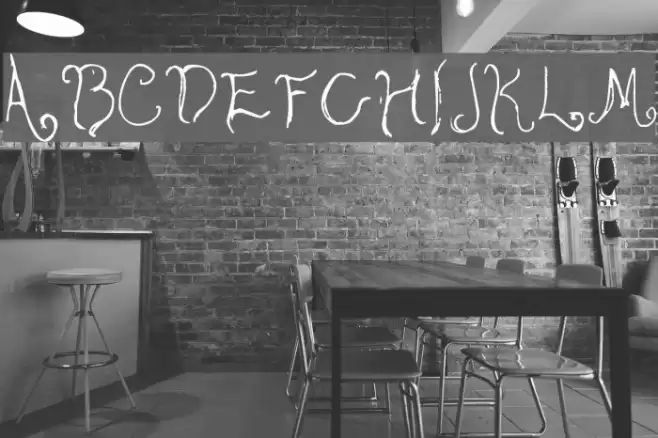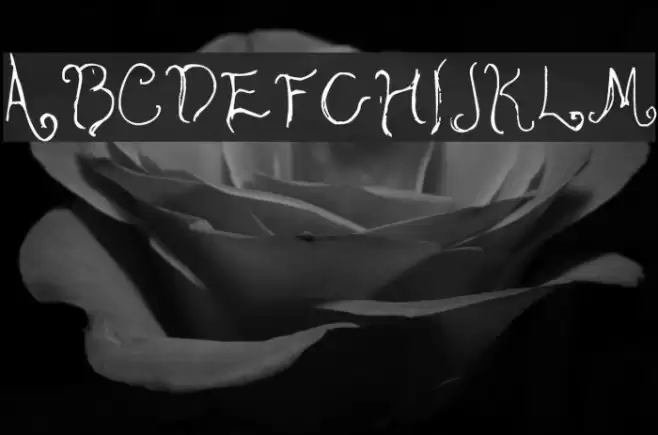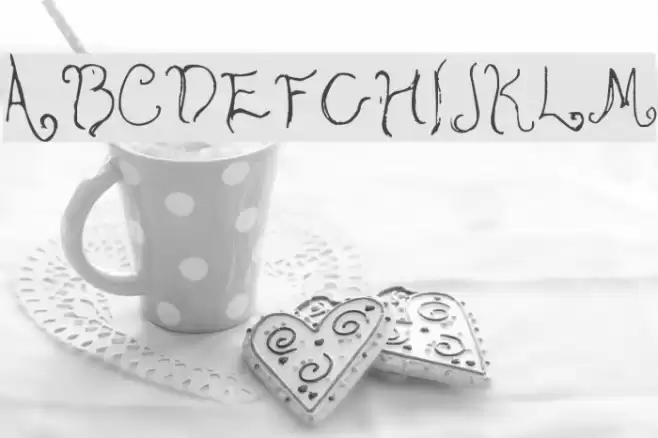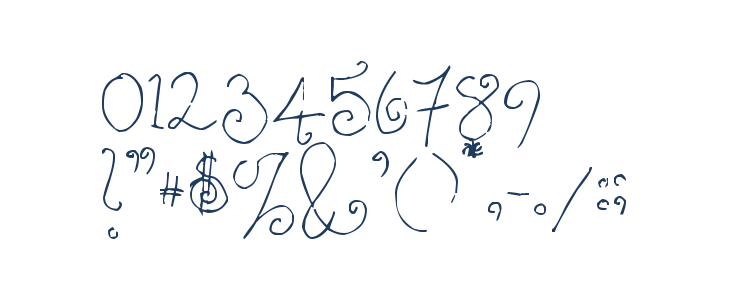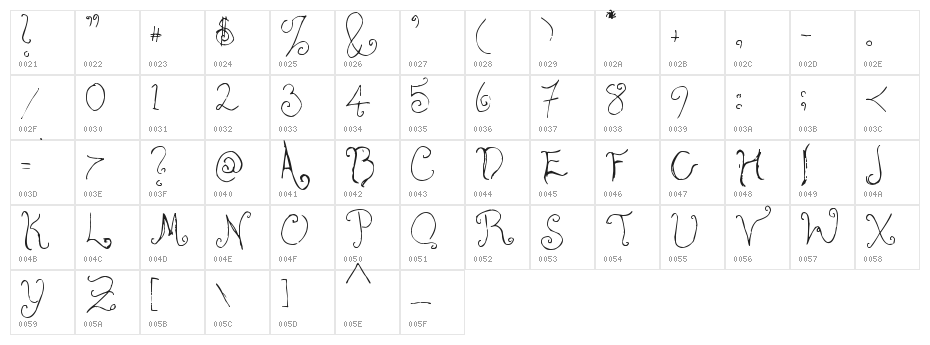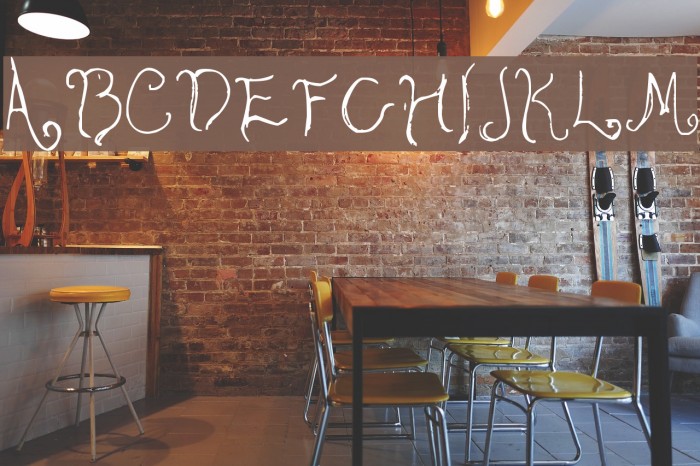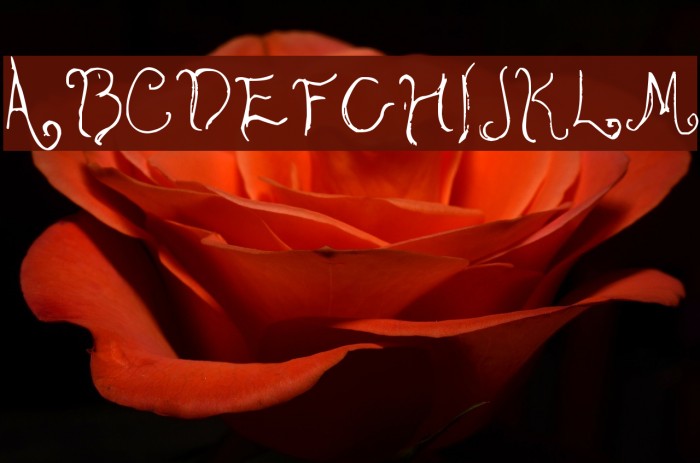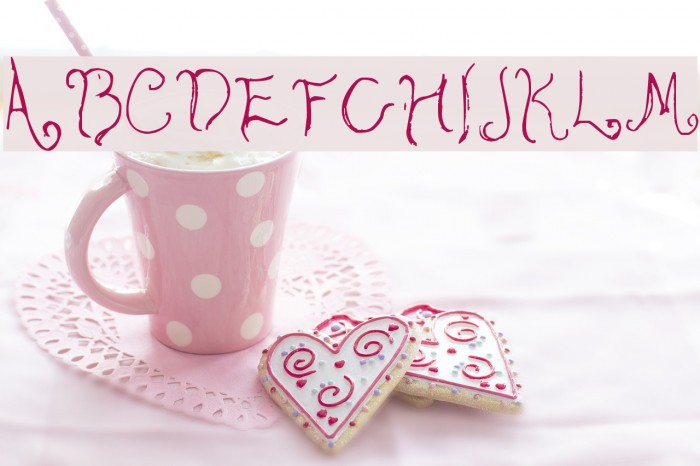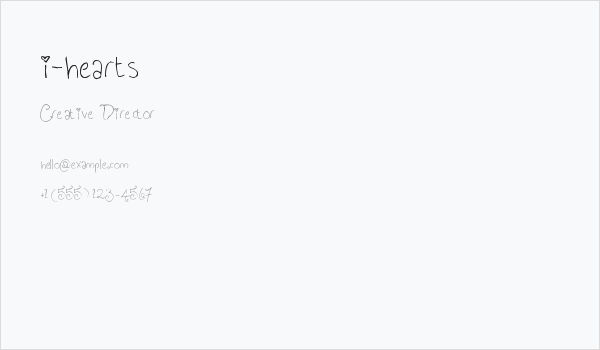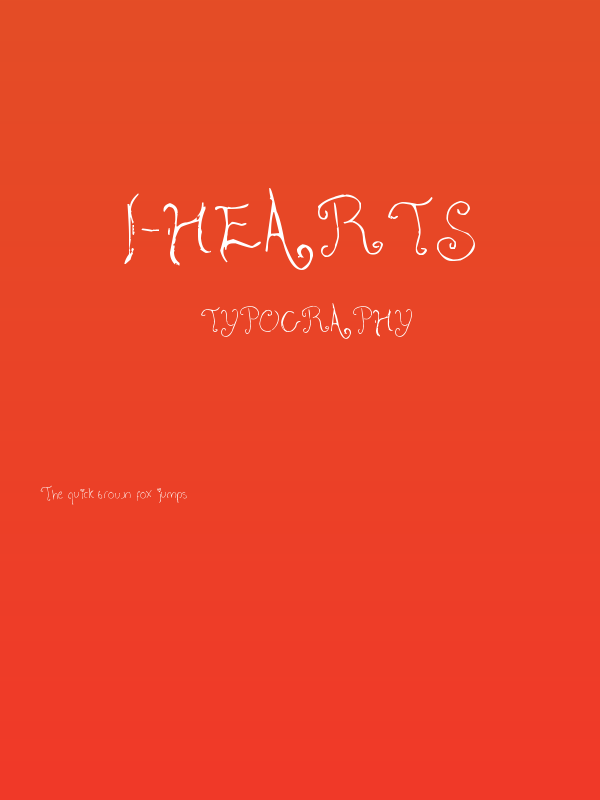
i-hearts Font
i-hearts Description
This whimsical and playful font features a hand-drawn style with a charming, decorative flair. Each character is uniquely crafted with swirling lines and heart motifs, adding a touch of romance and creativity. The uppercase letters are bold and expressive, while the lowercase letters maintain a consistent flow with playful loops and curls. Numbers and special characters follow the same artistic theme, making them perfect for creative projects. The overall design is light-hearted and imaginative, ideal for capturing attention and conveying a sense of fun.
A whimsical, hand-drawn font with decorative swirls and heart motifs from Uncategorized fonts.